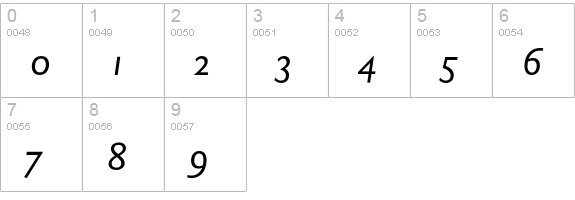
DTLHaarlemmerSansD-CapsItalic Font Details
DTLHaarlemmerSansD-CapsItalic is a stylish and modern font that exudes sophistication and elegance. Its italicized caps add a touch of flair to any design project, making it perfect for headings, titles, and other eye-catching elements. This font is versatile and can be used in a variety of creative projects, from branding to editorial design. The sleek and contemporary design of DTLHaarlemmerSansD-CapsItalic makes it a standout choice for designers looking to make a statement. Its clean lines and distinctive letterforms give a polished and professional look to any text. Best of all, DTLHaarlemmerSansD-CapsItalic is available for free download at FontsMarket.com. This means that you can easily access this high-quality font without any cost, making it a valuable addition to your font library. Don't miss out on the opportunity to enhance your designs with this elegant and versatile typeface.